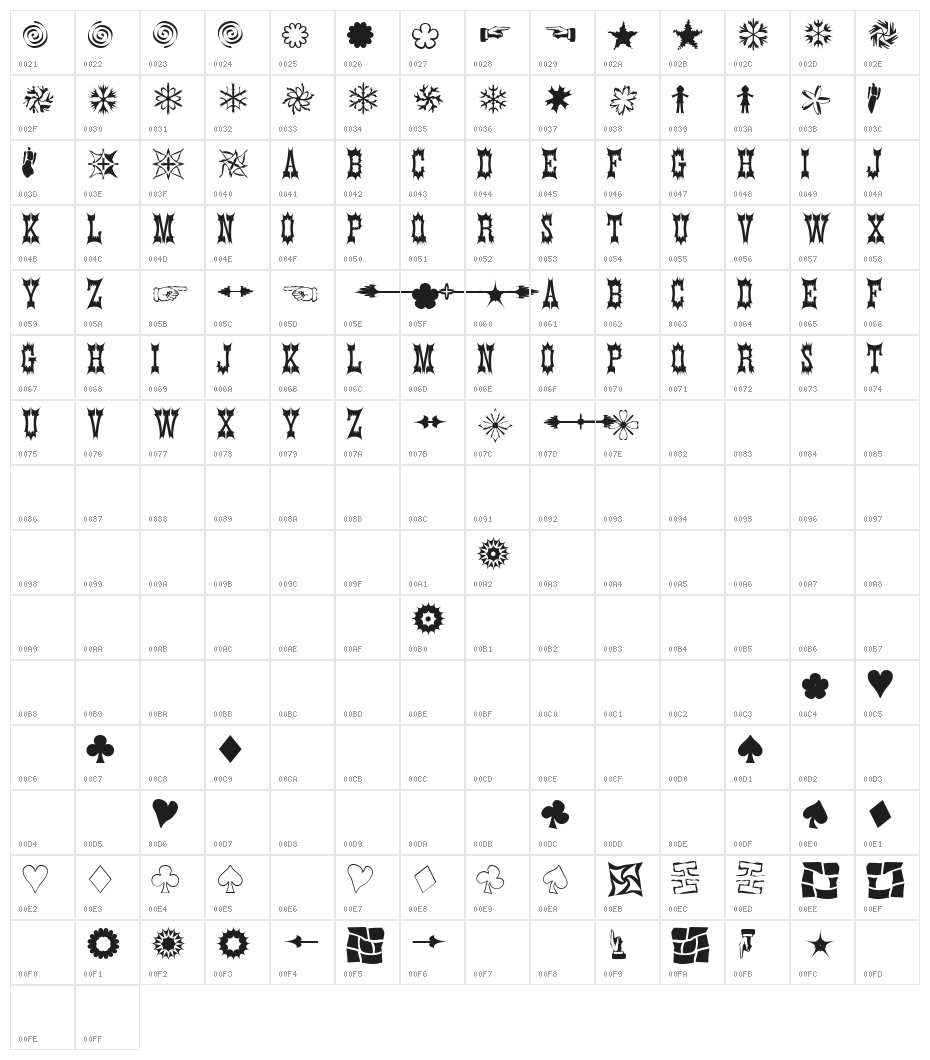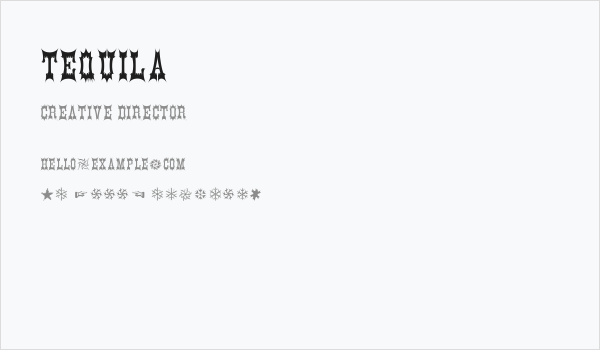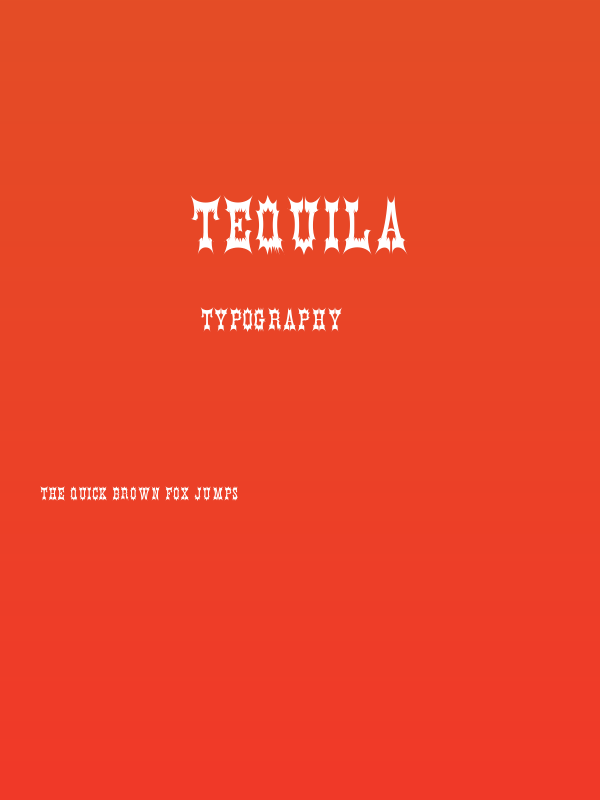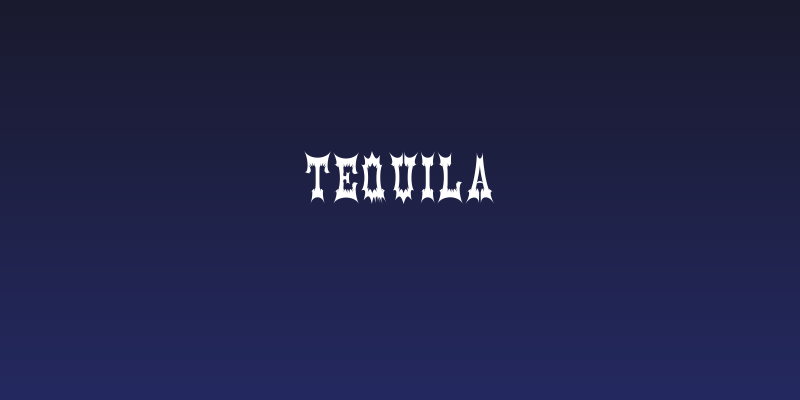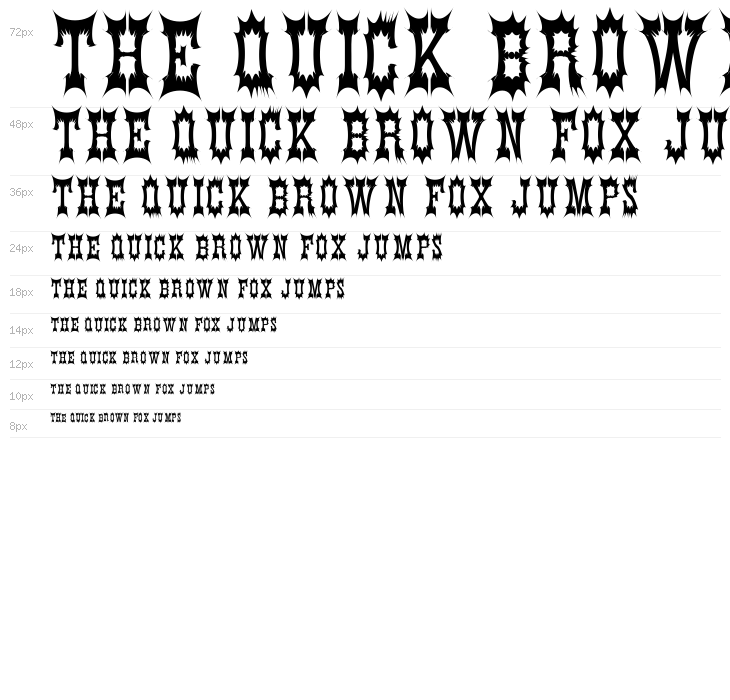
Tequila Font
Tequila Description
This font features a bold and dramatic style with sharp, jagged edges that resemble spikes or thorns. The letters are highly decorative, making them stand out with a unique, eye-catching appearance. The uppercase letters are consistent in their aggressive design, while the lowercase letters maintain the same sharp aesthetic. This font is perfect for creating a strong visual impact, with its high contrast and intricate details. The characters are evenly spaced, ensuring readability despite their complex design. The overall style is reminiscent of gothic or horror themes, making it suitable for projects that require a bold and edgy look.
| Overall Style | Gothic, Horror |
| Use Case | Headlines, Posters, Branding |
| Proposed Projects | Ideal for Halloween-themed designs, horror movie posters, edgy branding, or any project requiring a dramatic and bold typeface. |